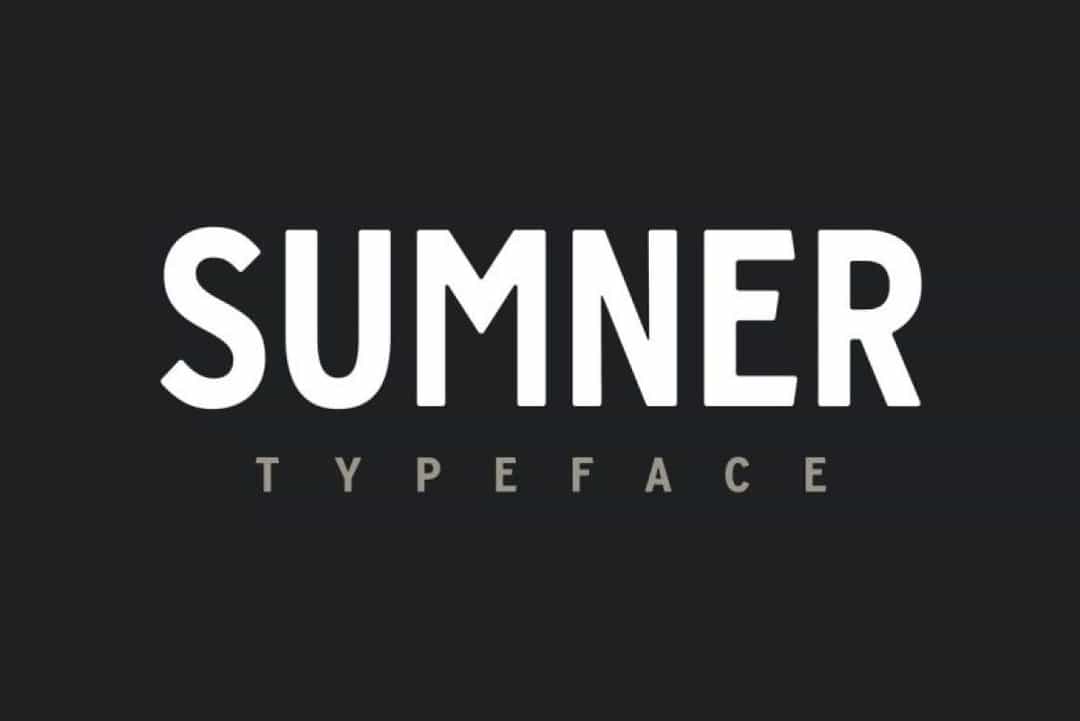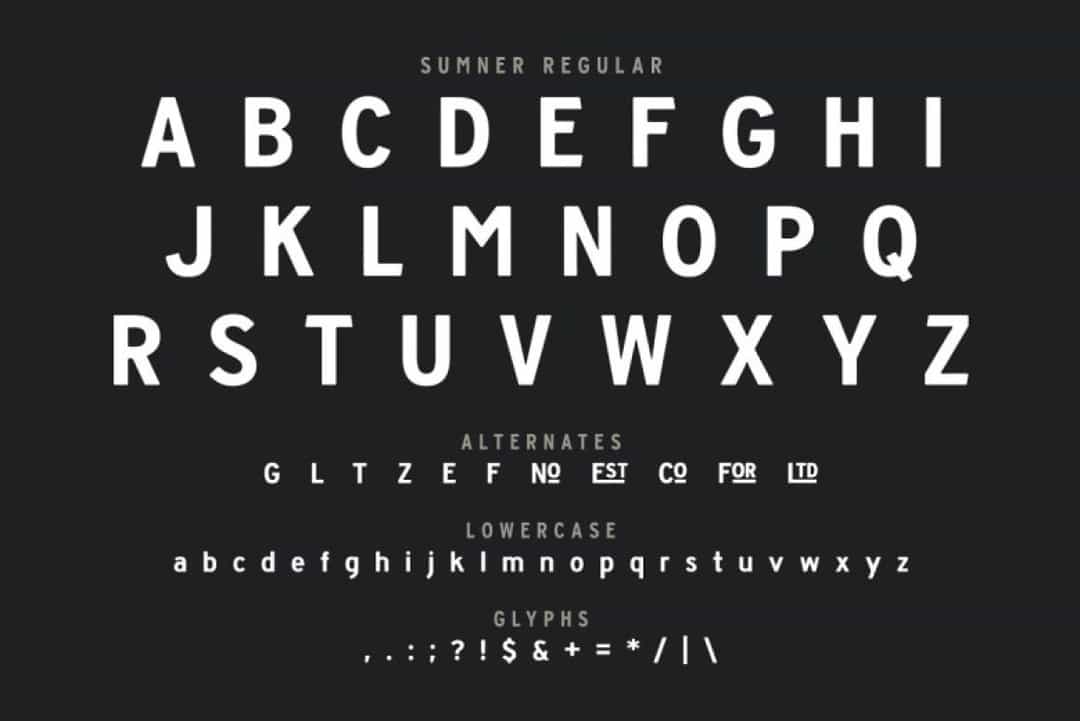
Sumner is a soft edge San-Serif typeface designed to meet all your design needs. Available both Regular and Condensed variants, Sumner can meet every task from signage and logo design, packaging design, t-shirt printing and apparel printing – it’s easily legible when small or large! Additionally, both styles feature rough versions which offer vintage or weathered design aesthetics.